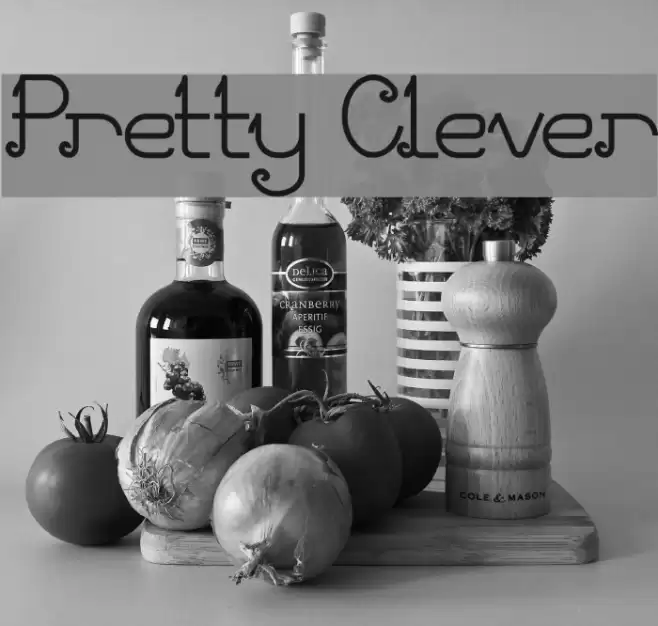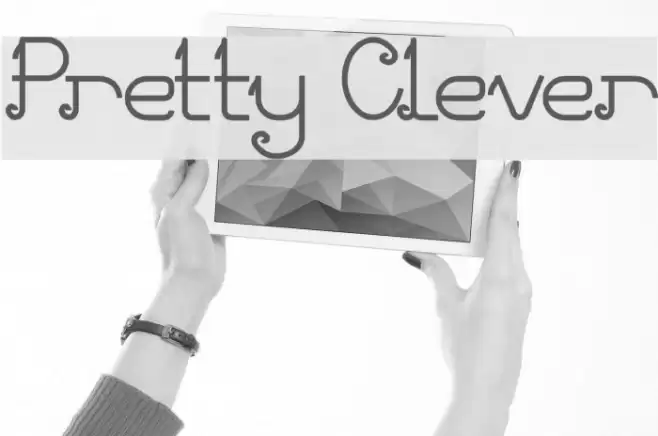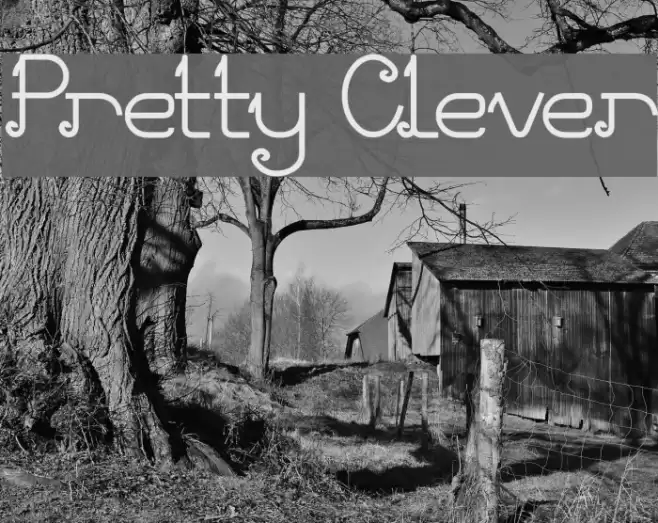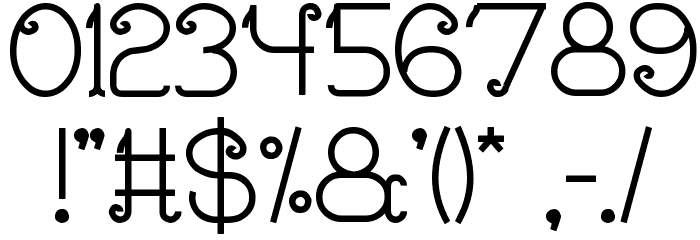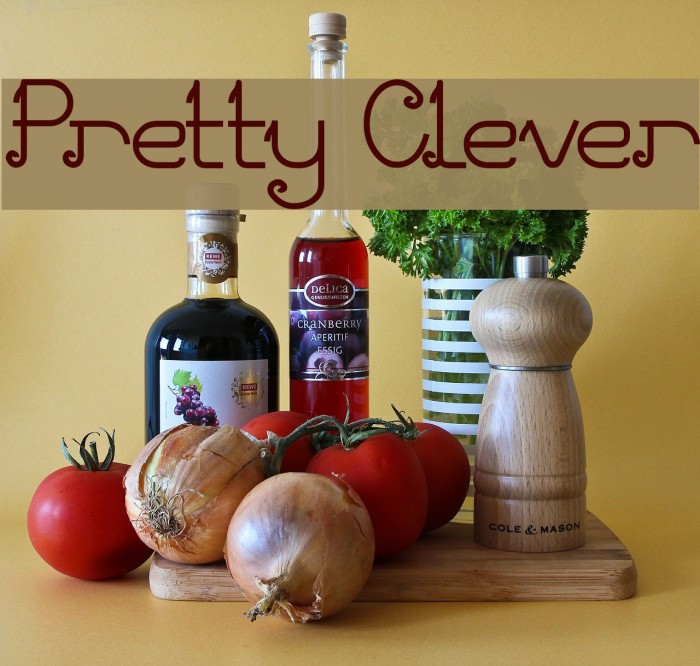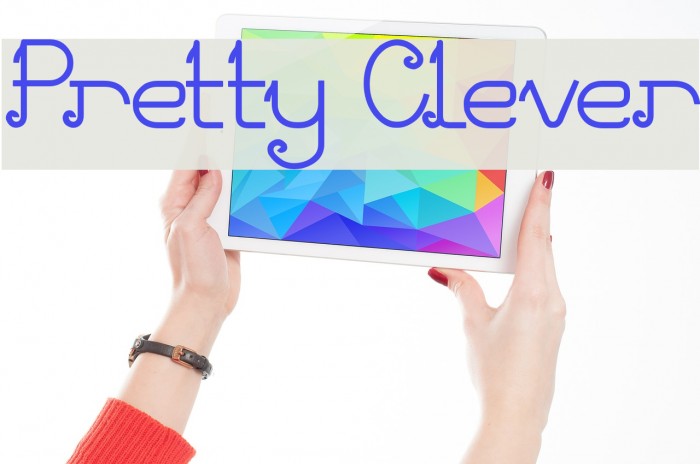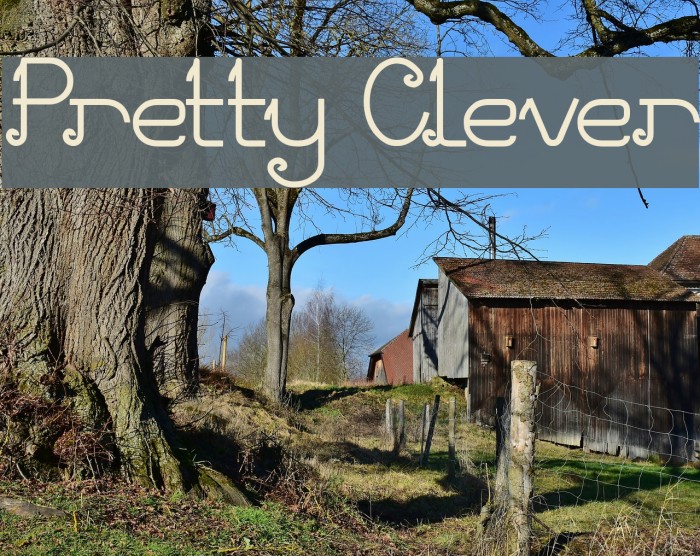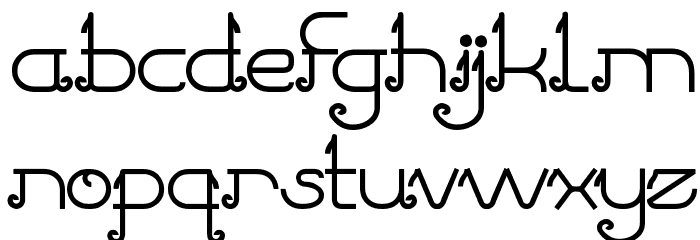
Pretty Clever Font
Pretty Clever Description
This font features a unique and playful design with a decorative flair. Each character is adorned with small curls and loops, giving it a whimsical and artistic appearance. The uppercase letters maintain a consistent height, while the lowercase letters have a slightly smaller stature, enhancing readability. Numbers and special characters follow the same decorative style, ensuring a cohesive look across all text elements. The font's distinct style makes it stand out, making it ideal for creative projects that require a touch of elegance and fun.
A decorative and whimsical font with playful curls and loops from Uncategorized fonts.
- Proposed Projects: Ideal for invitations, greeting cards, children's books, and playful branding projects.
- Use Case: Headlines, Logos, Invitations